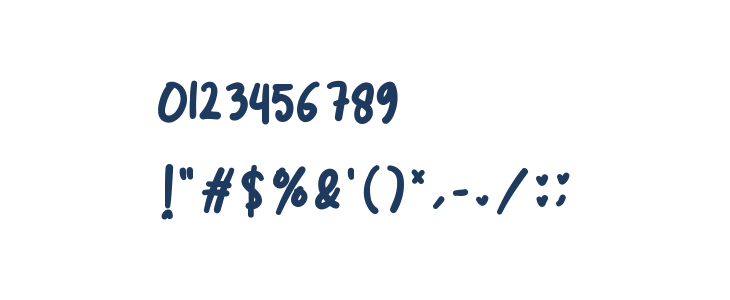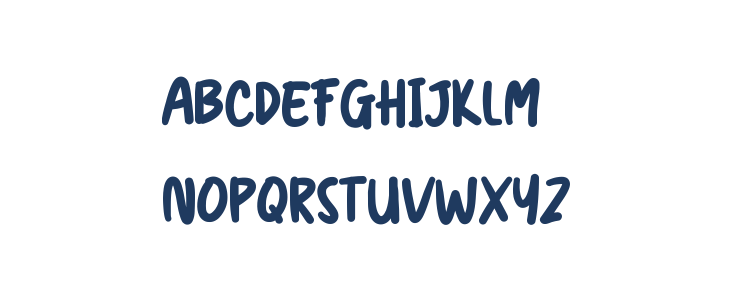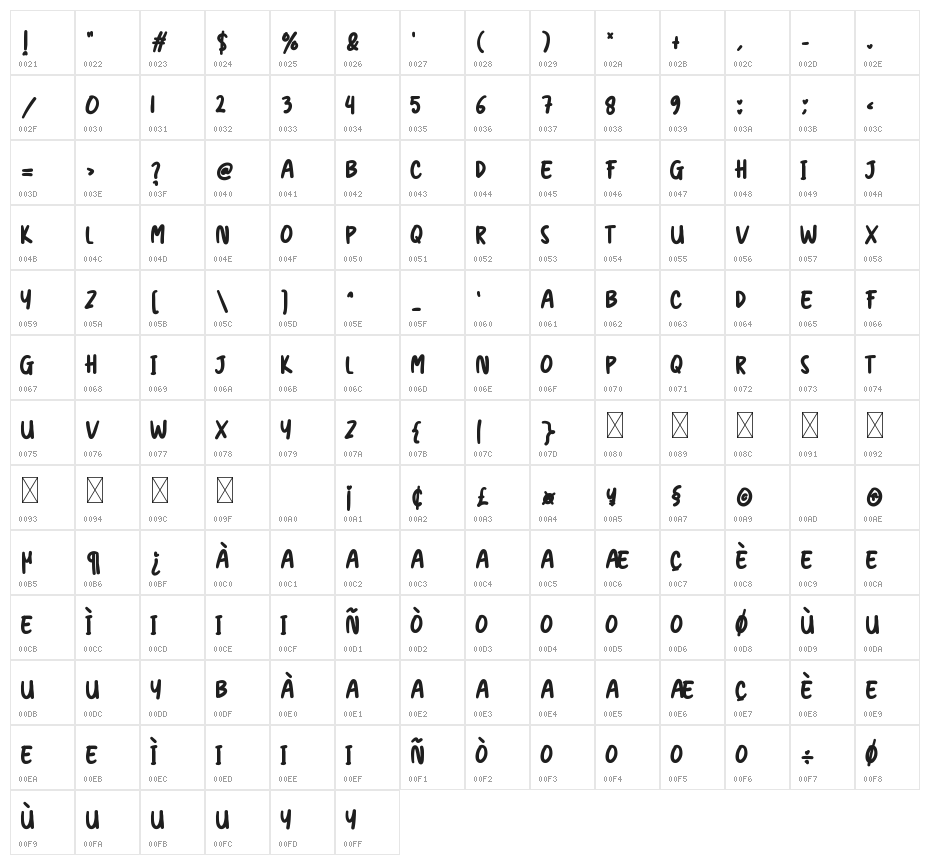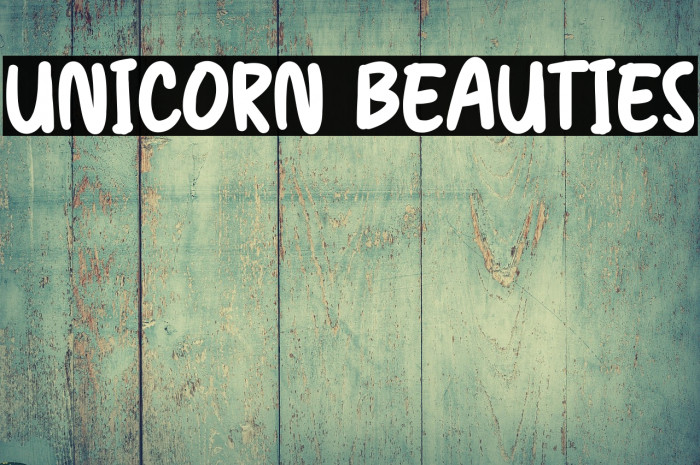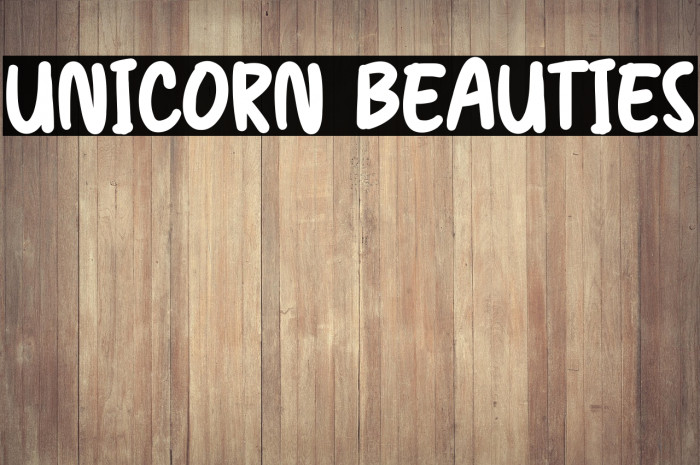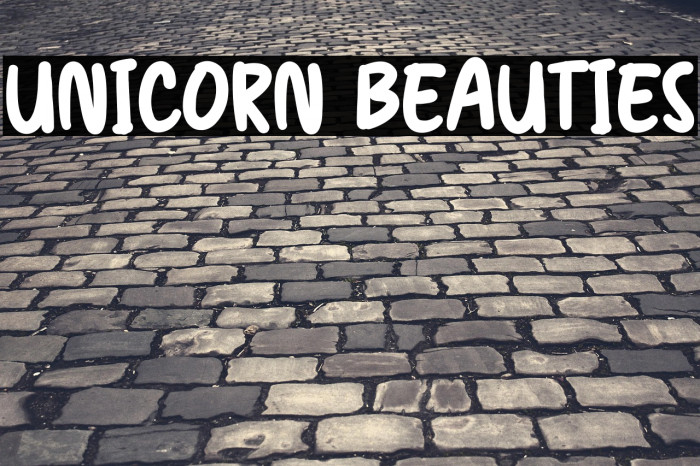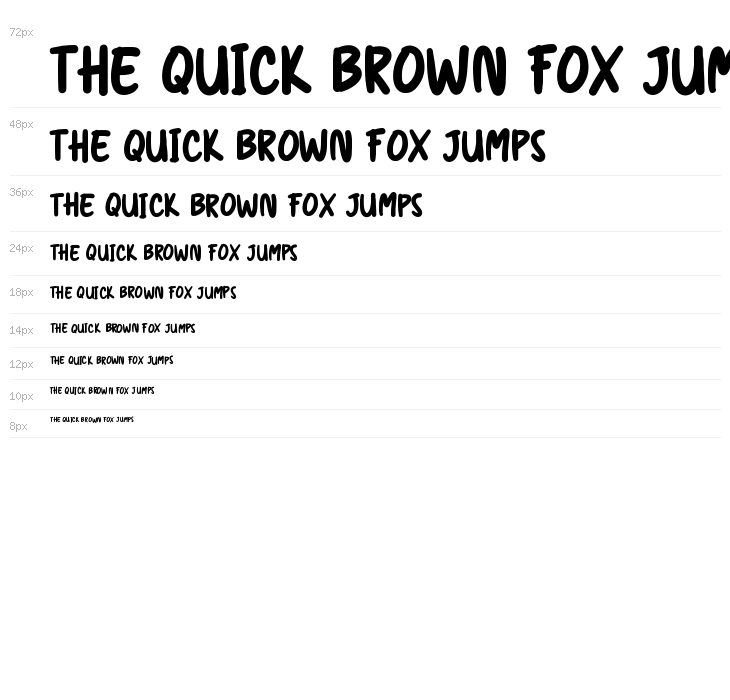
Unicorn Beauties Font
Unicorn Beauties Description
A playful, rounded handwritten font with bold strokes and informal character shapes, featuring consistent thickness and a friendly, approachable appearance.
| Overall Style | Playful, Casual, Modern |
| Use Case | Headlines, Posters, Informal branding, Social media |
| Proposed Projects | ChildrenΓ’β¬β’s books, greeting cards, posters, playful branding, social media graphics. |